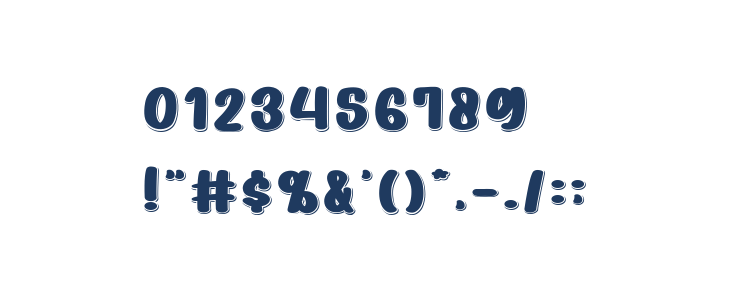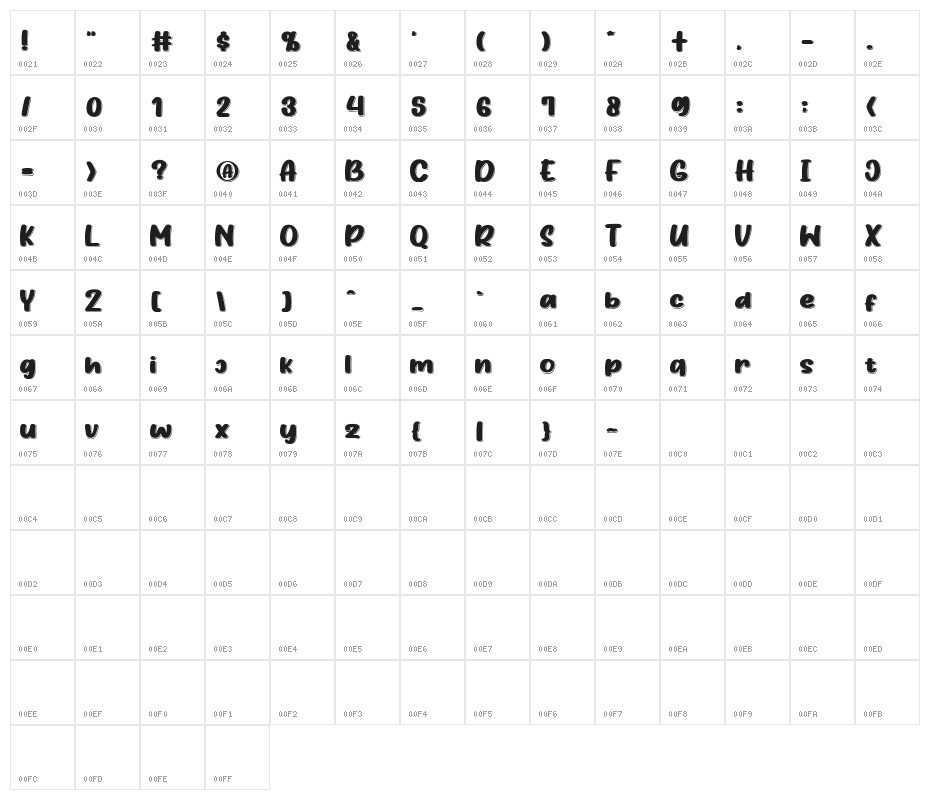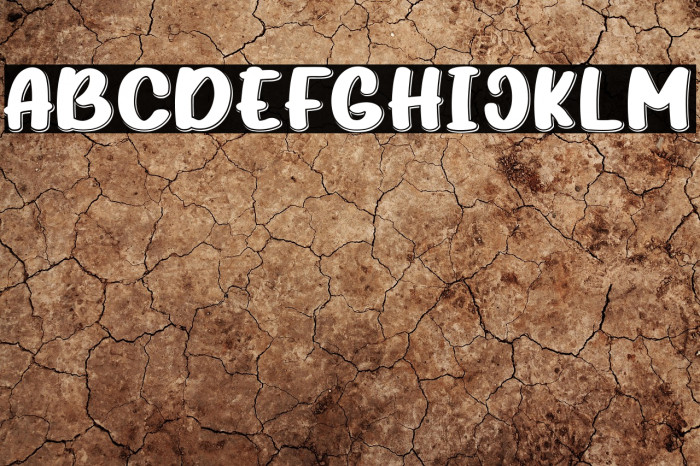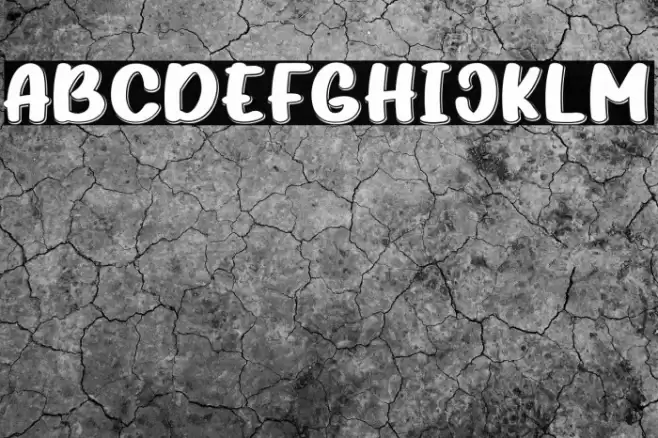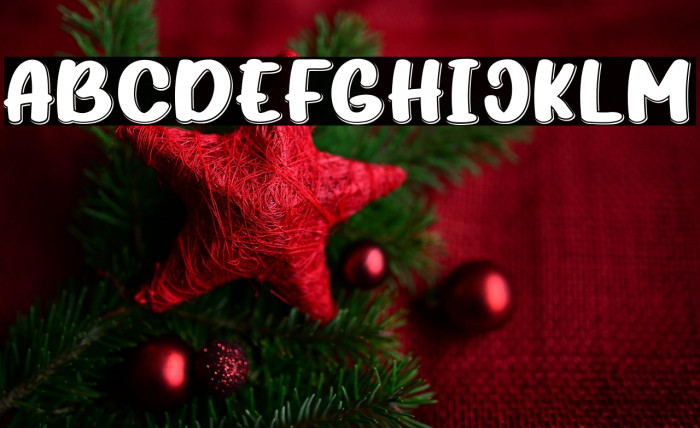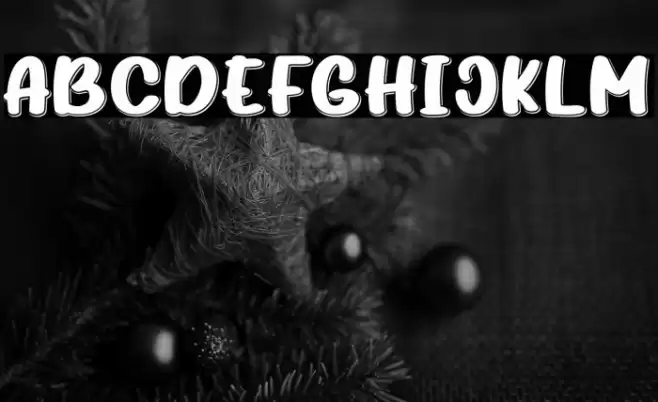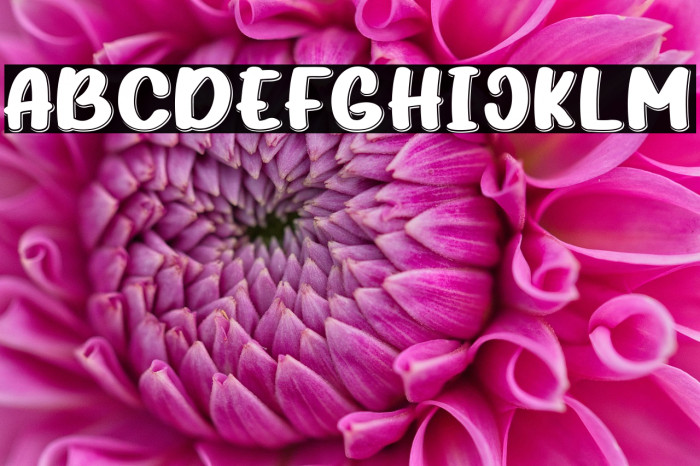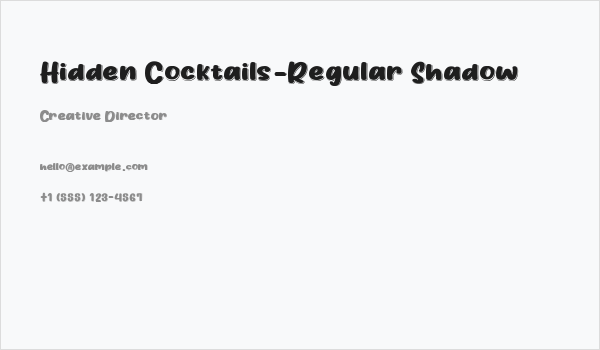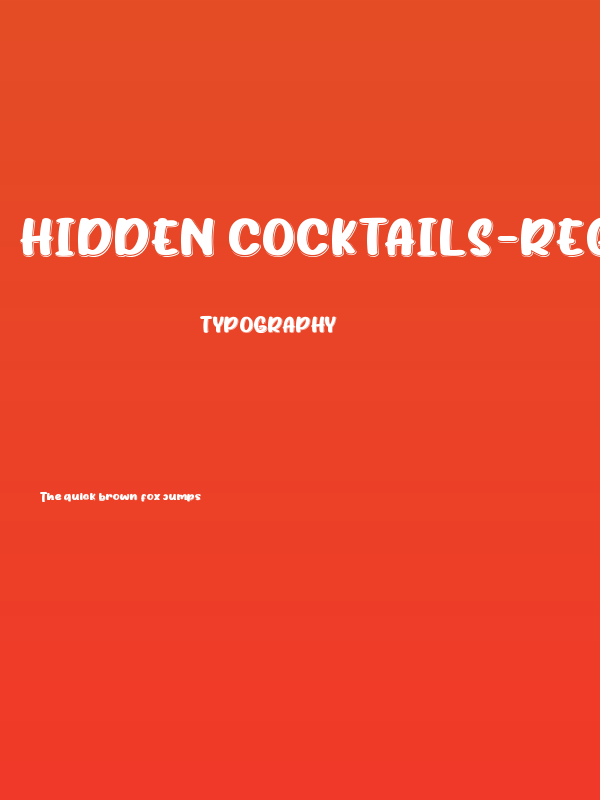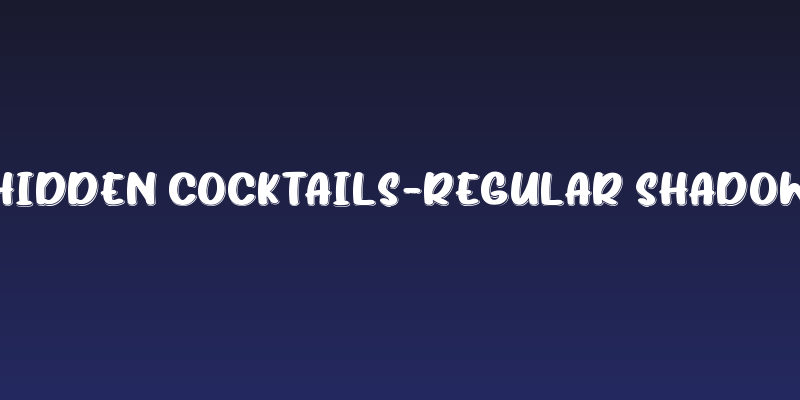
Hidden Cocktails-Regular Shadow Font
Hidden Cocktails-Regular Shadow Description
This font features a bold, playful style with a shadow effect that adds depth and dimension to each character. The letters are rounded and have a slightly whimsical appearance, making them stand out in any design. The uppercase and lowercase letters maintain a consistent style, with smooth curves and a uniform thickness throughout. The numbers and special characters are designed to match the overall aesthetic, ensuring a cohesive look across all text elements. This font's unique shadow effect gives it a three-dimensional quality, making it ideal for eye-catching designs.
| Overall Style | Playful, Modern |
| Proposed Projects | Ideal for posters, logos, children's books, and playful branding projects. |